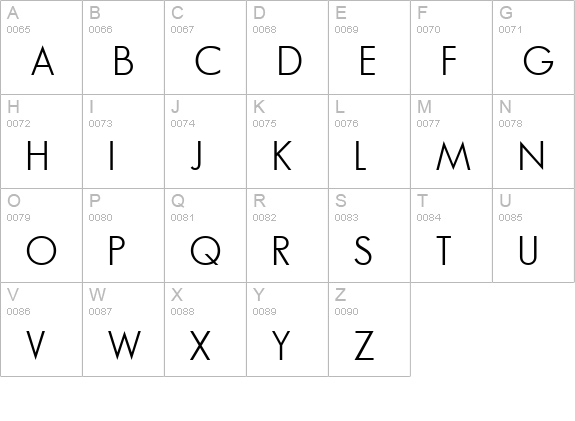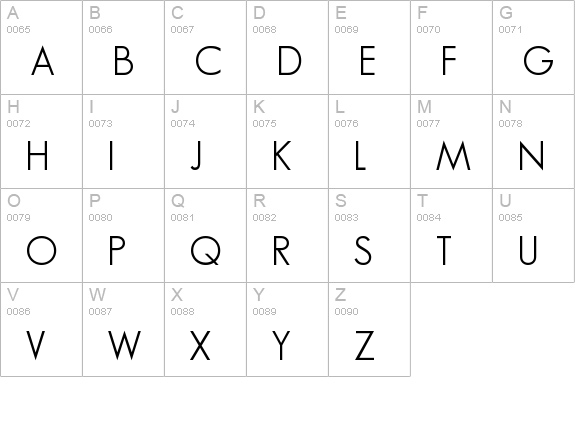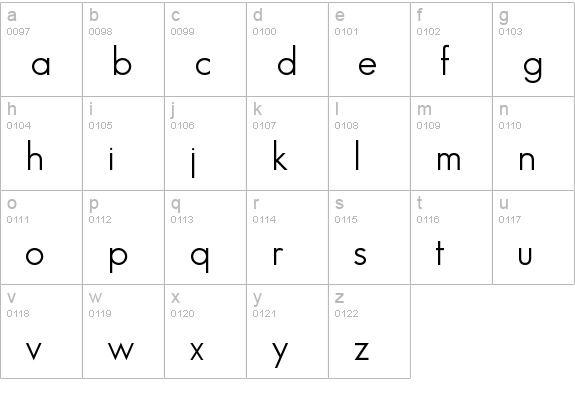
Bougan Book SSi Book is a comfortable, highly readable variant in the Bougan typeface family \xE2\x80\x94 well suited to long-form body text, articles, and editorial content.
Bougan Book SSi Book font is a beautifully designed typeface that exudes elegance and sophistication. With its clean lines and well-balanced proportions, this font is perfect for a wide range of design projects. Whether you're working on a book cover, branding materials, or website design, Bougan Book SSi Book font will add a touch of class to your work. The best part? Bougan Book SSi Book font is available for free download at FontsMarket.com. This means you can easily access this stunning font and incorporate it into your projects without any cost. Don't miss out on the opportunity to elevate your designs with the timeless charm of Bougan Book SSi Book font. Download it today and let your creativity shine.